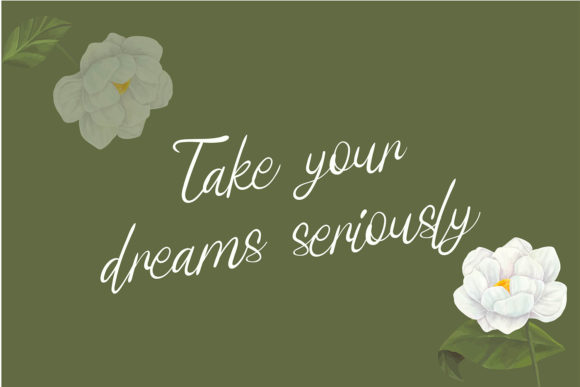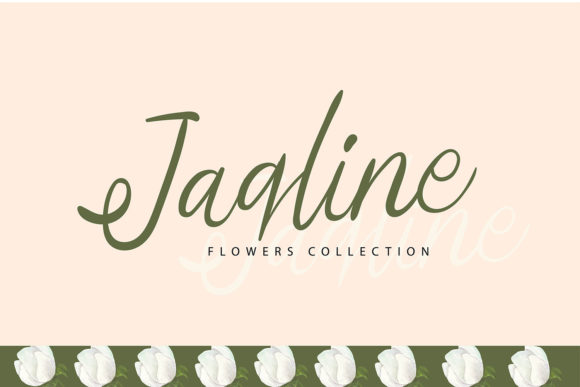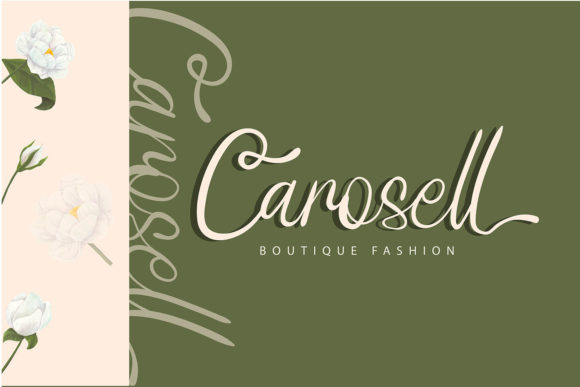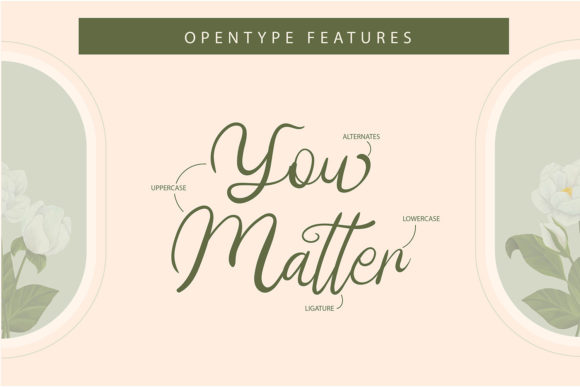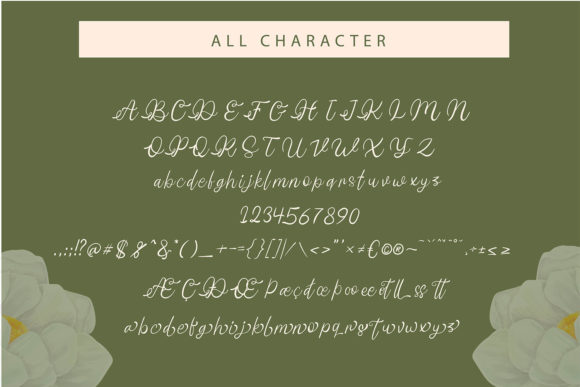
Introduction to Rotilla Font
As a designer, have you ever been in a rush to finish a creative project, only to realize that the perfect font is just out of reach? I know I have. The search for that elusive font can be a frustrating experience, but what if I told you that you’ve just stumbled upon the perfect solution? Enter the beautiful and refined Rotilla Font, a game-changer for designers and creatives alike.
With its classy, elegant, and modern look, Rotilla Font is the ultimate design resource for any project. Whether you’re working on a logo, branding, invitation, or social media post, this font is sure to elevate your design to the next level. And the best part? It’s available for free download, complete with a transparent background and high-quality design.
Key Features of Rotilla Font
- High-quality design resource with a unique, creative style perfect for various projects.
- Great for designers looking for a distinctive and eye-catching design element to elevate their creative project.
Honest Review: Rotilla Font
As a designer, I’m always on the lookout for high-quality design resources to elevate my creative projects. Recently, I stumbled upon the Rotilla Font, and I’m excited to share my honest review with you.
Here are some aspects that I think work well: ✨
- Unique and creative design: The Rotilla Font has a distinctive style that’s perfect for adding a touch of whimsy to your projects.
However, I do have some limitations to mention: ⚠️
- Limited character set: The font’s character set is relatively small, which might be a concern for designers who need a wide range of characters.
- No bold or italic variants: While the font’s unique design is a strength, the lack of bold and italic variants can make it less versatile.
Overall, the Rotilla Font is a great addition to any designer’s toolkit, offering a unique and creative design that’s perfect for adding a touch of personality to your projects. However, its limitations should be taken into consideration when deciding whether to use it in your design work.
The Rotilla Font is ideal for various design projects, including social media graphics, flyers, posters, and business cards. You can also use it for creating custom watermarks, logos, and typography-based designs. With its high-quality design and versatility, the Rotilla Font is a valuable addition to any designer’s toolkit.
Is the Rotilla Font available in high quality?
Yes, the Rotilla Font is designed to be a high-quality design resource. It features a clear and legible design, making it suitable for use in various creative projects, from graphic design to digital art. The font’s high quality ensures that it will display well on a variety of devices and screen sizes.